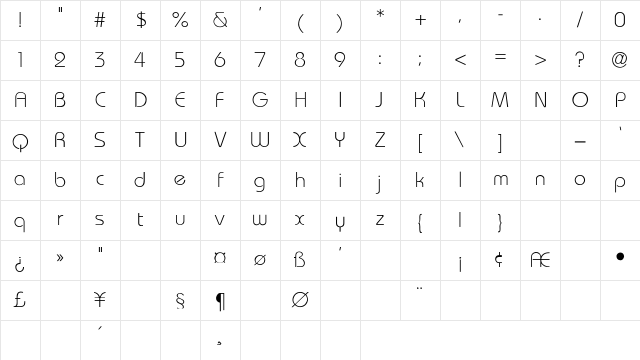
Bauhaus-Light-Light Regular
Bauhaus-Light-Light Family
Design Context for Bauhaus-Light-Light
Bauhaus-Light-Light is a composed and adaptable typeface that performs quietly and consistently across a wide range of design contexts. Its slender proportions lend an understated elegance to any composition.